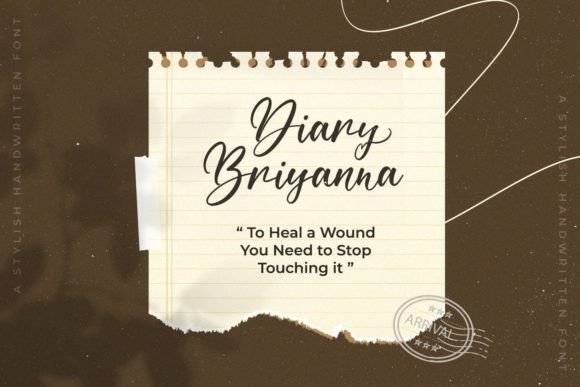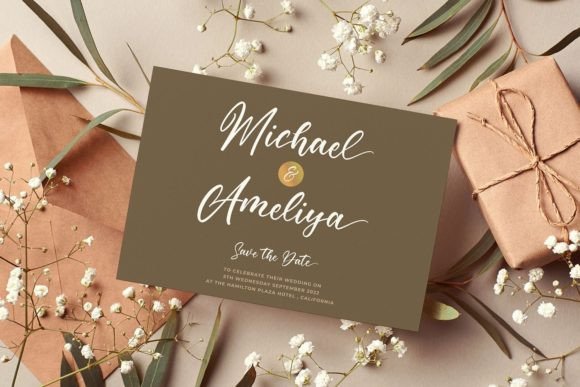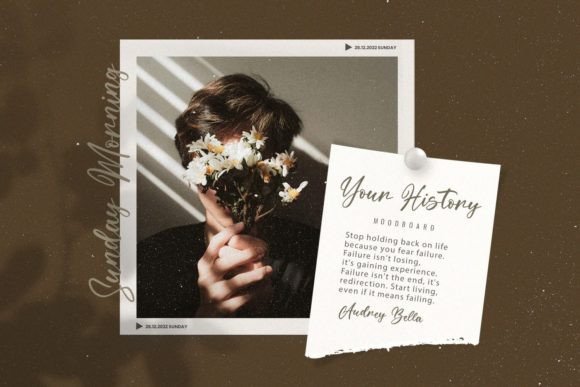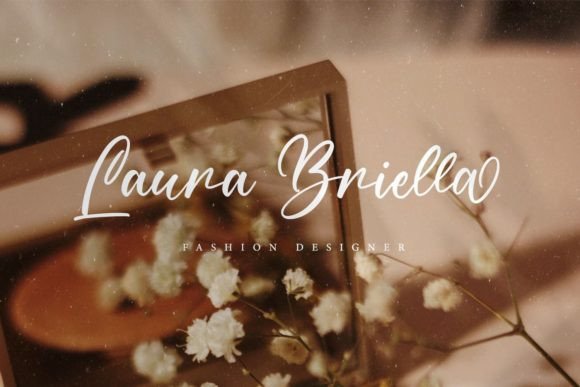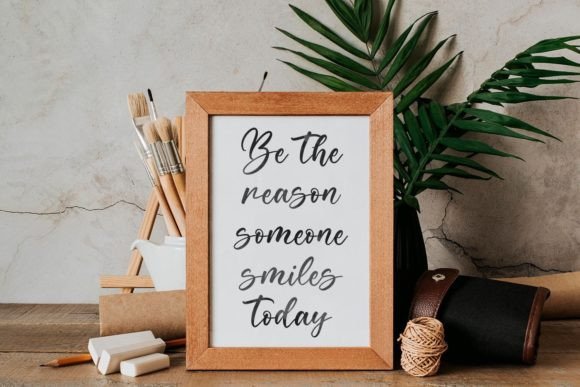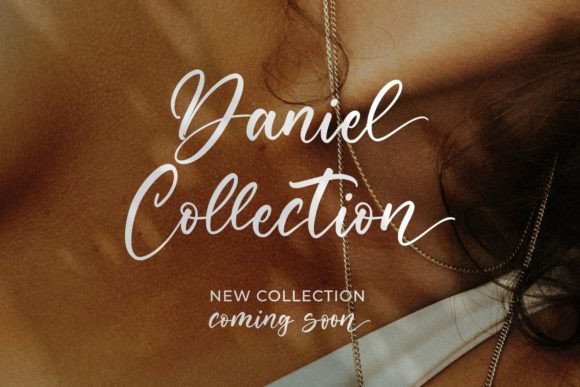
Discover the Beauty of Cheryl Masetta Font: Elevate Your Designs with a Modern Handwritten Style
In the world of typography, a good font can make all the difference in the success of a design project. For designers, crafters, and anyone looking to add a personal touch to their work, the Cheryl Masetta font is a fantastic choice. This modern and beautiful handwritten font boasts a natural and stylish flow that is sure to capture the attention of your audience. In this article, we’ll dive into the features and benefits of the Cheryl Masetta font, and explore how it can elevate your designs to the next level.
What is Cheryl Masetta Font?
Cheryl Masetta is a modern handwritten font designed to bring a touch of elegance and sophistication to your projects. With its natural and stylish flow, this font is perfect for a wide range of applications, from branding and advertising to crafting and DIY projects. The font’s unique and beautiful style is sure to set your work apart from the crowd and leave a lasting impression on your audience.
Key Features of Cheryl Masetta Font
So, what makes the Cheryl Masetta font so special? Here are some of its key features:
- PUA Encoded: The Cheryl Masetta font is PUA (Private Use Area) encoded, which means that you can access all of the glyphs and swashes with ease. This makes it simple to customize your text and add unique touches to your designs.
- Modern and Beautiful: The font’s modern and beautiful style is perfect for designers and crafters who want to add a touch of elegance to their work.
- Natural and Stylish Flow: The font’s natural and stylish flow makes it easy to read and gives it a friendly, approachable feel.
- Versatile: The Cheryl Masetta font is versatile and can be used for a wide range of projects, from branding and advertising to crafting and DIY projects.
Benefits of Using Cheryl Masetta Font
So, why should you choose the Cheryl Masetta font for your next project? Here are some of the benefits of using this beautiful font:
- Easily Readable: The font’s natural and stylish flow makes it easy to read, even at small sizes.
- Customizable: The PUA encoding makes it simple to customize your text and add unique touches to your designs.
- Time-Saving: The font’s versatility and ease of use make it a time-saving solution for designers and crafters.
- Unique and Memorable: The font’s unique and beautiful style is sure to set your work apart from the crowd and leave a lasting impression on your audience.
How to Use Cheryl Masetta Font in Your Designs
Using the Cheryl Masetta font in your designs is easy. Here are some tips to get you started:
- Pair it with Other Fonts: The Cheryl Masetta font pairs well with other fonts, making it easy to create unique and interesting combinations.
- Experiment with Swashes: The font’s PUA encoding makes it simple to add swashes and other decorative elements to your text.
- Use it for Headings and Titles: The font’s bold and beautiful style makes it perfect for headings and titles.
- Add it to Your Brand Identity: The font’s unique and memorable style makes it a great choice for brand identity and advertising projects.
In conclusion, the Cheryl Masetta font is a modern and beautiful handwritten font that is perfect for designers, crafters, and anyone looking to add a personal touch to their work. With its natural and stylish flow, PUA encoding, and versatility, this font is sure to elevate your designs to the next level. Whether you’re working on a branding project, crafting a DIY project, or simply looking for a unique and memorable font, the Cheryl Masetta font is a fantastic choice.